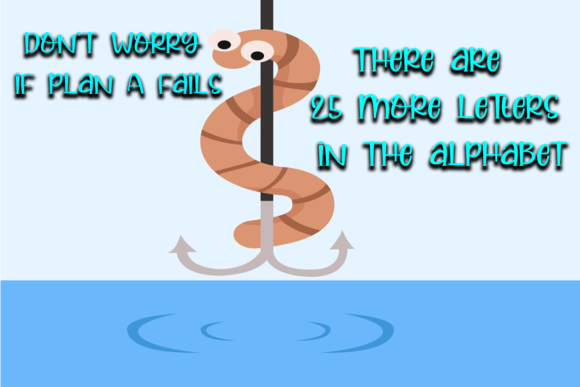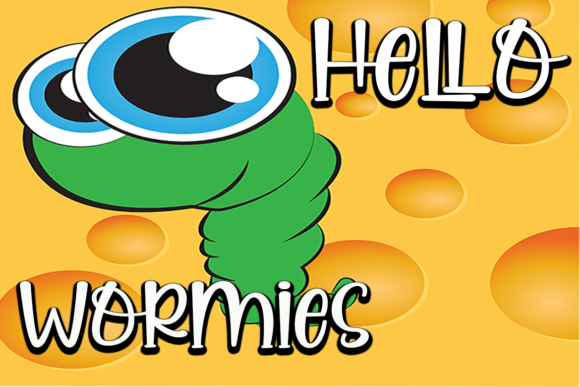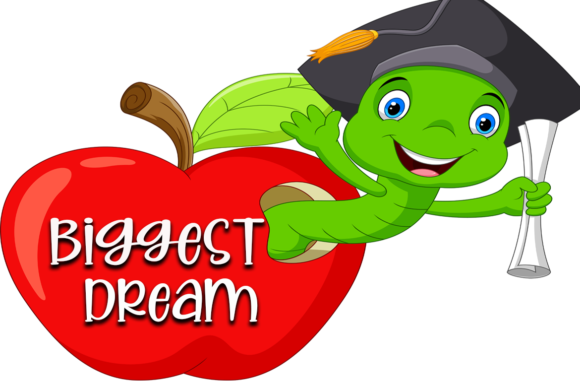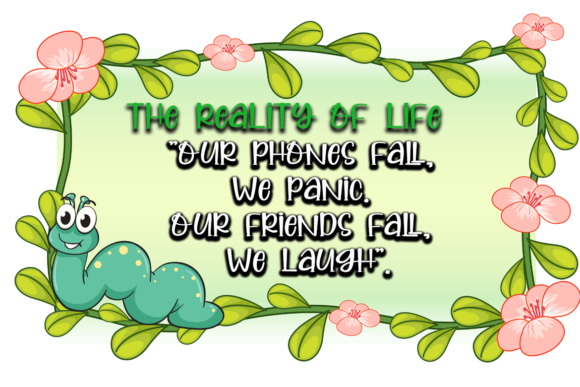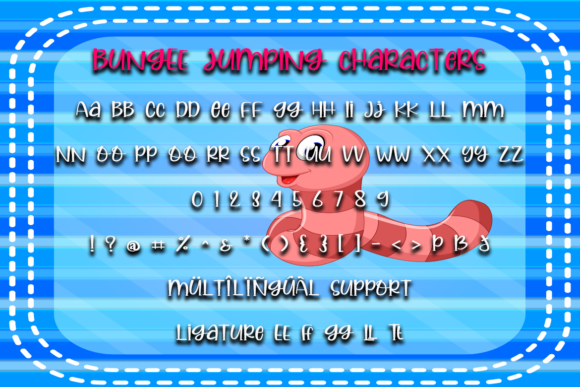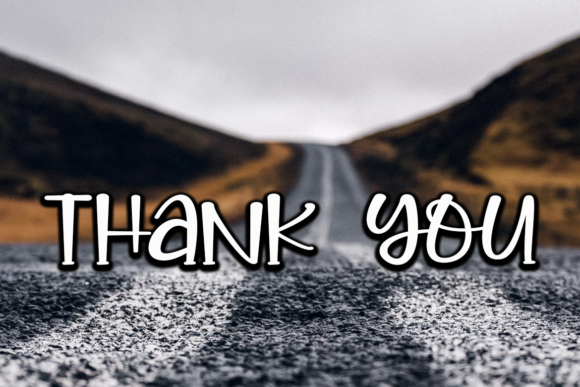
Get Ready to Jump into Joy with Bungee Jumpings Font
Have you ever stared at a blank canvas, trying to come up with the perfect design to capture a moment of pure joy? Maybe it’s a birthday party invitation, a social media post, or a product launch announcement – whatever it is, you want it to make people smile. That’s exactly what the Bungee Jumpings Font is designed to do. This cute and quirky display font is the perfect addition to any creative project that needs a playful touch.
By incorporating the Bungee Jumpings Font into your designs, you’ll add a dash of whimsy and fun that’s sure to grab attention. Whether you’re a seasoned designer or just starting out, this versatile font is a valuable tool in your creative arsenal. With its joyful vibe and playful flair, the Bungee Jumpings Font is the perfect way to make your designs stand out from the crowd.
- Unique Characteristics: Hand-drawn, distressed, and dynamic design elements, including swooshes and splashes, create a sense of movement and energy
Bungee Jumping Font Review
I’ve had the chance to play around with the Bungee Jumping Font, and here’s my honest take on it.
- Unique and quirky design that adds a touch of personality to any text
- Works well for titles and headings, as the irregular shape of the letters adds visual interest
- Easy to read, despite the unconventional design, making it a great choice for digital applications
- Not ideal for body text, as the irregular shape of the letters can make it difficult to read for extended periods
- May not be suitable for formal or professional applications, as it has a playful and casual vibe
- May require additional styling to make it work well with certain font sizes and colors
The Bungee Jumping Font is a fun and quirky addition to any design project. While it may have some limitations, it’s a great choice for titles and headings that need to stand out. Just be mindful of its limitations and use it in the right context to get the best results.
Tips for Getting the Most Out of Bungee Jumping Font
Use Bungee Jumping font for bold, eye-catching headlines and titles.
Combine with other bold fonts for a dynamic look.
Bungee Jumping font is perfect for:
Adventure and sports-themed designs.
Headlines and titles in action-packed movies and TV shows.
Branding and marketing materials for extreme sports companies.